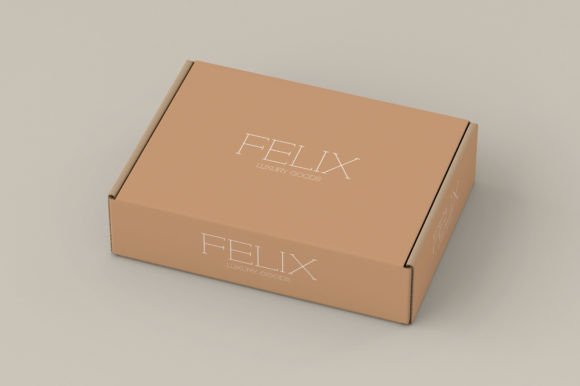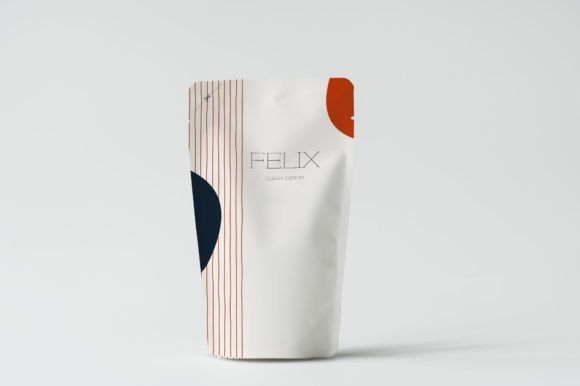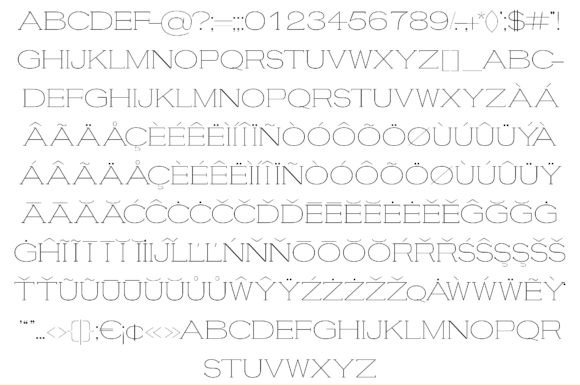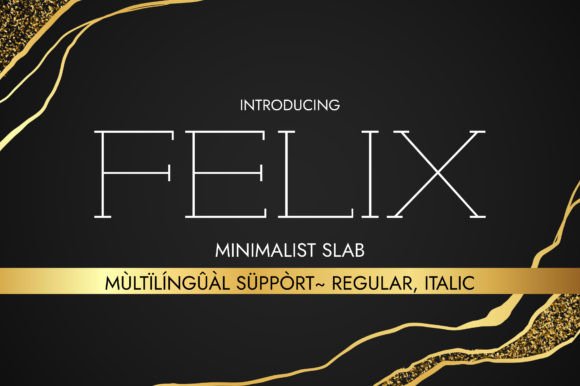
Felix
Felix: A Clean and Elegant Thin Slab Serif Typeface
Felix is a clean, elegant, and luxurious thin slab serif typeface. Its unique glyph construction makes it an excellent choice for designing particular elegant designs that require some unique touches. This versatile font is suitable for use in both headings and body text. Moreover, it shines in packaging design, perfume branding, cosmetics design, web design, magazine covers, and more. Add this font to your favorite creations, and you’ll quickly notice how it brings them to life!
Key Features of Felix
• Clean Design: Offers a crisp and refined look suitable for various applications.
• Thin Slab Serif: Features delicate serifs that add elegance and character.
• Unique Glyph Construction: Provides distinctive letterforms for standout designs.
• Versatile Application: Works well for both headings and body text in various contexts.
Ideal Uses for Felix
Felix’s unique characteristics make it particularly well-suited for:
When incorporating Felix into your designs, consider these tips:
• Use for both headlines and body text to showcase its versatility.
• Experiment with different sizes to highlight the font’s elegant features.
• Consider pairing with sans-serif fonts for contrast in complex layouts.
• Utilize its clean appearance to create designs that balance sophistication and readability.
In conclusion, Felix is an excellent choice for designers looking to add a clean, elegant, and luxurious thin slab serif typeface to their toolkit. Its unique glyph construction and versatility make it stand out in the world of typography. Whether you’re working on packaging design, creating perfume branding, or developing content for web and print, Felix offers the perfect blend of sophistication and readability.
Furthermore, Felix’s distinctive design allows it to shine in various contexts where a refined and contemporary look is desired. From cosmetics packaging to magazine covers, this font can elevate your projects with its unique style. Its clean yet luxurious appearance works particularly well in designs that aim to convey elegance and modernity while maintaining excellent legibility.
To sum up, Felix is a font that truly captures the essence of modern elegance in thin slab serif typography. Its versatility across different applications showcases its adaptability to various creative needs. For those looking to add a touch of sophisticated charm to their work, Felix can enhance themed creations with its distinctive style. It’s the ideal choice for designers seeking to make a refined, stylish impact across a wide range of creative projects.